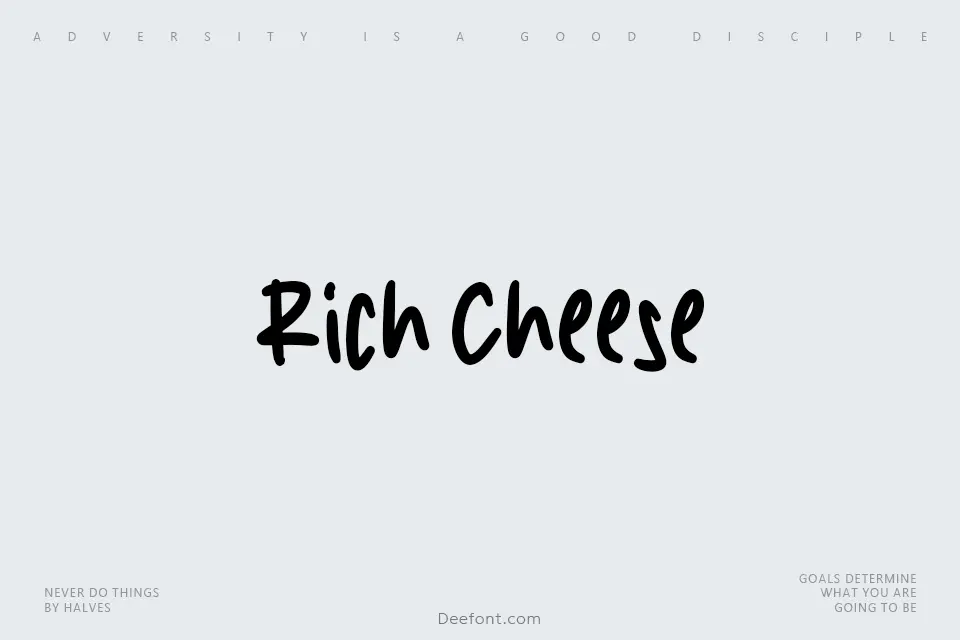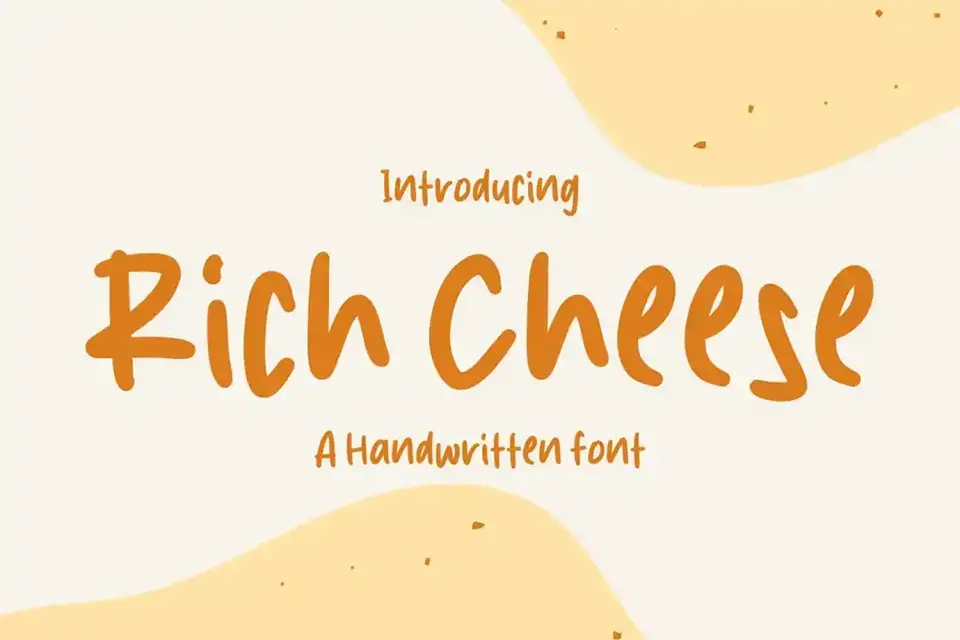
Rich Cheese Font
Rich Cheese is a captivating handwritten script typeface crafted with bold strokes and organic flourishes, exuding warmth and playful character. This font features rounded letterforms and decorative elements perfect for eye-catching headlines, creative branding, festive posters, product packaging, and personalized designs. With its friendly aesthetic and expressive personality, Rich Cheese brings authentic hand-lettered charm to any creative project requiring a touch of whimsy and visual impact.